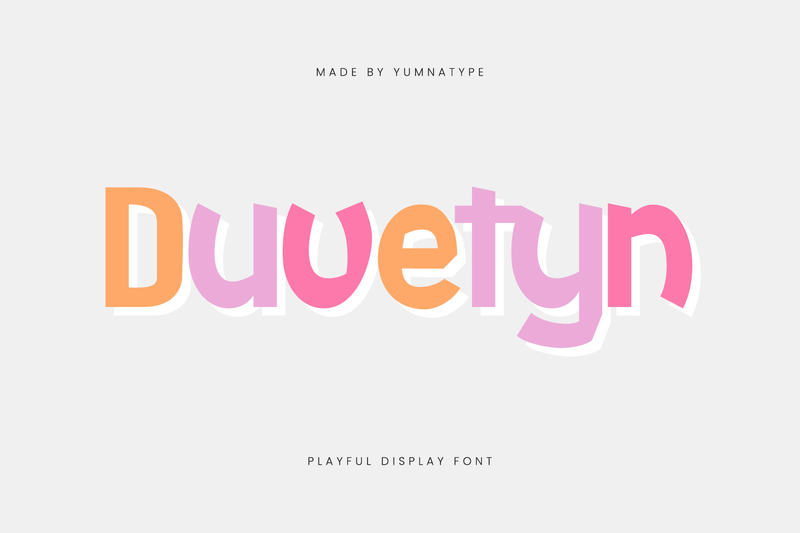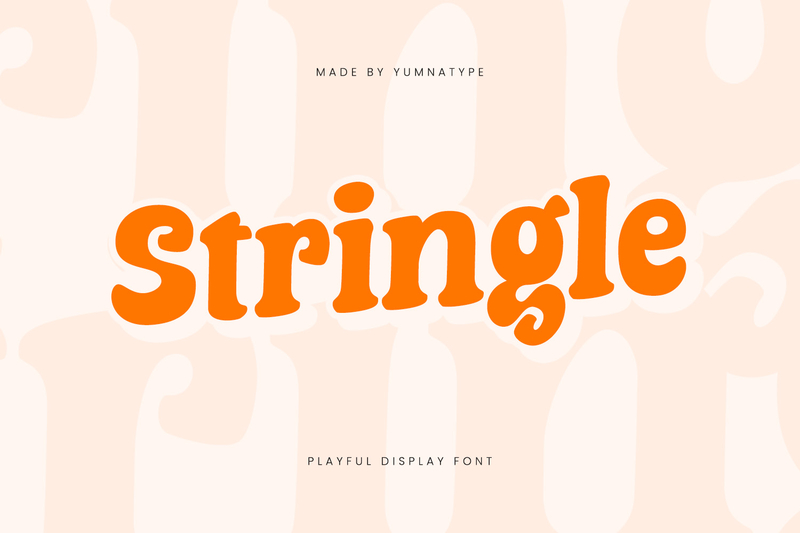
13 Recommended Playful Heavy Font Styles for Your Bold and Playful Designs
Have you ever been instantly drawn to a design just by looking at the letterforms? Like playful, heavy fonts, these fonts are gaining popularity because they create bold, engaging, playful, and characterful visuals. Font selection is no longer just a complementary element; it plays a crucial role in creating a visual atmosphere, capturing the audience’s attention, and strengthening brand identity, making it more memorable.
The combination of bold letterforms with playful touches creates an expressive, fun, and energetic impression. Therefore, we present 13 recommended playful heavy font styles that designers can use for posters, branding, packaging, and even more eye-catching children’s designs.
If you’re looking for recommended playful heavy font styles with a bold, unique, and characterful look, this article will help you find the best options for your modern design needs. Here are our most recommended playful heavy font styles for a more creative, eye-catching, and memorable design.
Ranhart
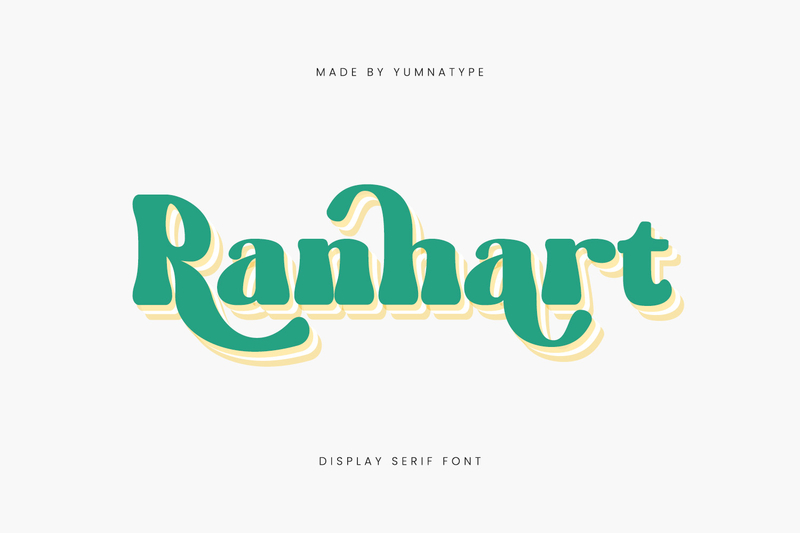
Ranhart is one of the recommended playful heavy font styles with bold serifs that combines rounded and unique curves, creating a playful and stylish look. This font brings a warm, fun, and standout modern retro feel with decorative swash details that easily attract attention.
Ranhart is perfect for playful vintage logos, retro posters, branding, and social media designs that aim to be more expressive and memorable. The font’s main strength lies in its combination of bold letters, dynamic shapes, and comfortable readability, creating a vibrant and elegant design.
Bullsnite
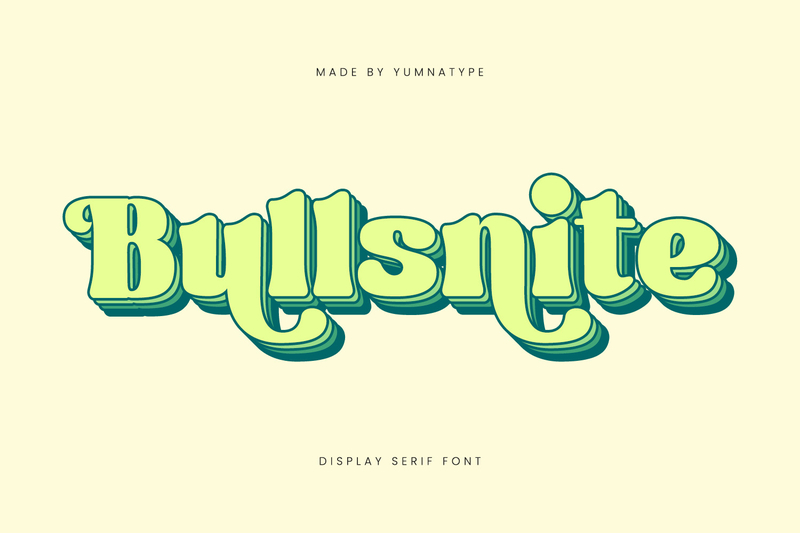
Bullsnite comes as a recommended playful heavy font with a bold display style blended with rounded letterforms, creating a strong yet fun and approachable feel. The low-contrast letterforms, bold shapes, and distinctive curved details create a unique, playful retro feel, making designs more vibrant and eye-catching.
This font is ideal for poster designs, logos, branding, product packaging, and social media content seeking to stand out and appear distinctive. Furthermore, Bullsnite also features alternates, which help make text appear more varied, creative, and expressive.
Pinkish Fruits
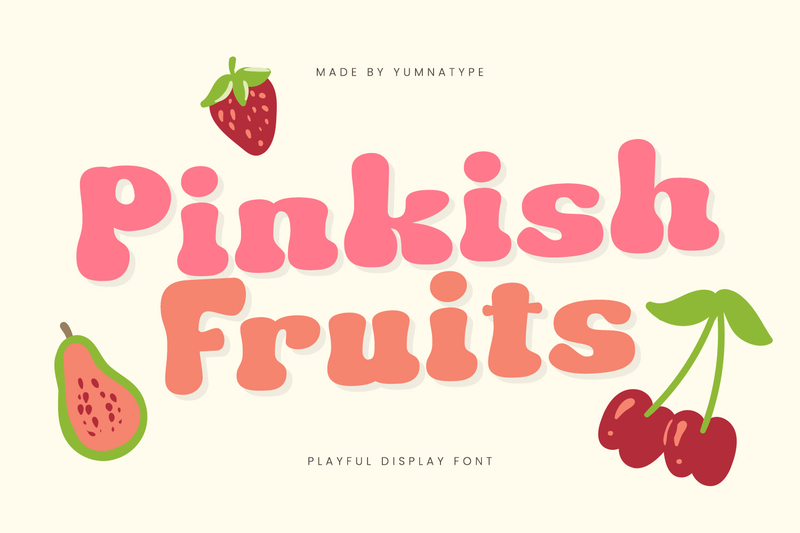
Pinkish Fruits is a recommended playful heavy font with a cute and cheerful feel that makes designs look more fun and eye-catching. Its rounded letterforms and extra thickness create a soft, friendly, and energetic look. This font is suitable for dessert branding, food packaging, and children’s posters, creating a sweet, expressive, and memorable visual appearance.
Borner Wilds
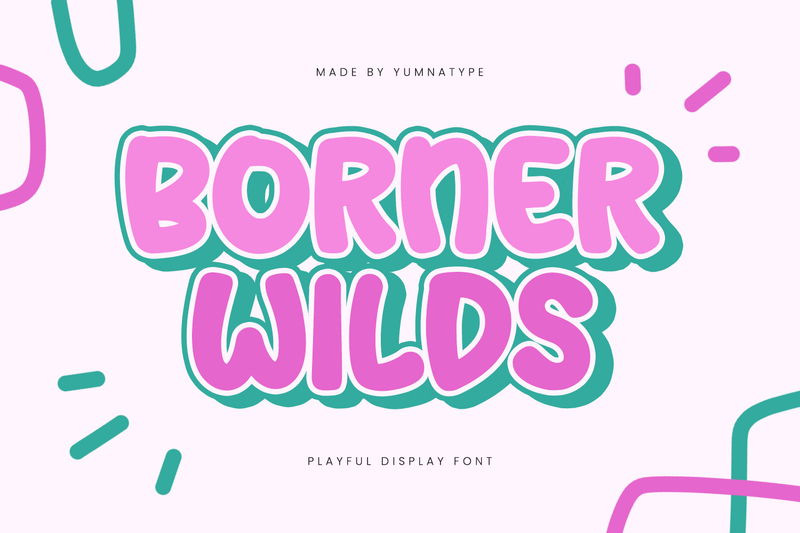
Borner Wilds features bold all-caps with rounded letterforms, creating a playful, energetic, and engaging look. The low-contrast, bold lettering creates a fun and friendly feel without compromising readability. Suitable for headlines, posters, branding, product packaging, and even social media content, this font helps create more standout and attention-grabbing designs.
Fancies Toys
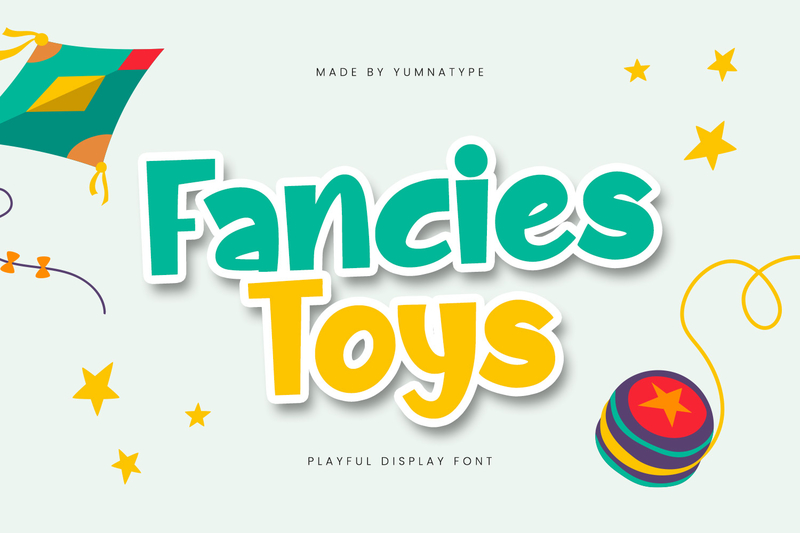
Fancies Toys is a recommended playful heavy font with a bold display style and geometric letterforms that create a fun, playful, yet slightly bold appearance. The boldness of the letters and their dynamic shapes help text stand out and be more memorable. This font works perfectly for children’s posters, toy branding, product packaging, and social media content that wants to appear more cheerful and expressive. Furthermore, Fancies Toys is equipped with ligatures that help the text appear more unified, creative, and visually appealing.
Nice Twins
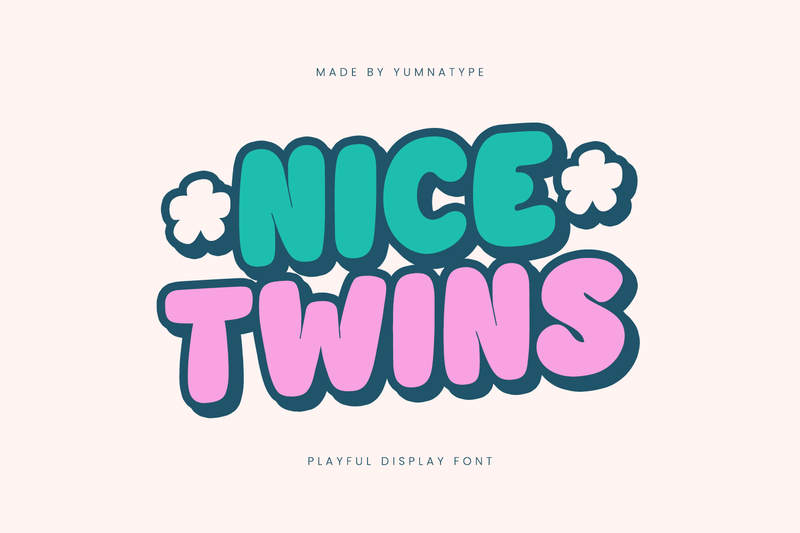
Nice Twins is one of the most popular recommended playful heavy font styles for modern design, with a bold, fun, and characterful look. The all-caps style with rounded letterforms creates a friendly impression and makes the text stand out and eye-catching.
Designers often use this font for posters, branding, logos, product packaging, and social media content aiming for a more playful and eye-catching design. Additionally, Nice Twins feature ligatures to make the text more creative, blended, and dynamic for various design needs.
Spring Sounds
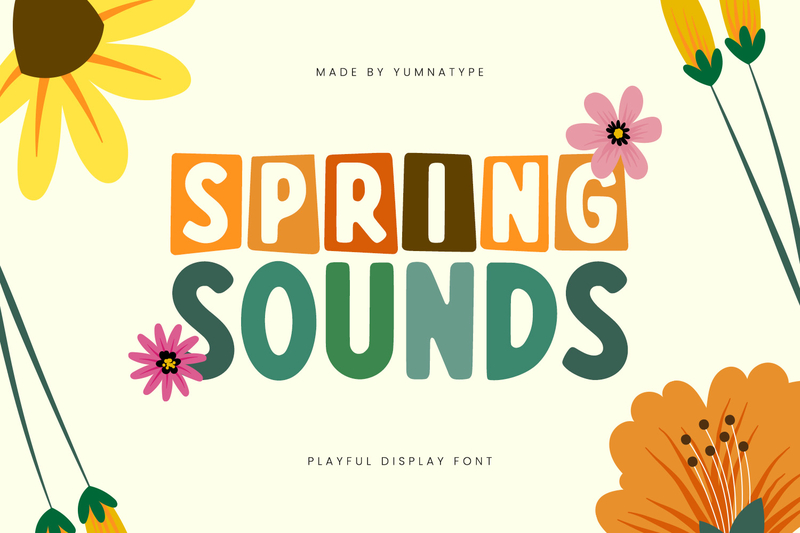
With its playful display style anf bold, energetic feel, Spring Sounds presents a unique visual look. This font combines uppercase and lowercase letters in the concept of varied all-caps. The rounded letterforms give a friendly and fun impression, while the font’s thickness makes the text stand out and eye-catching. Therefore, Spring Sounds is suitable for posters, branding, product packaging, social media content, and fun, youthful-themed designs.
Greny Wish
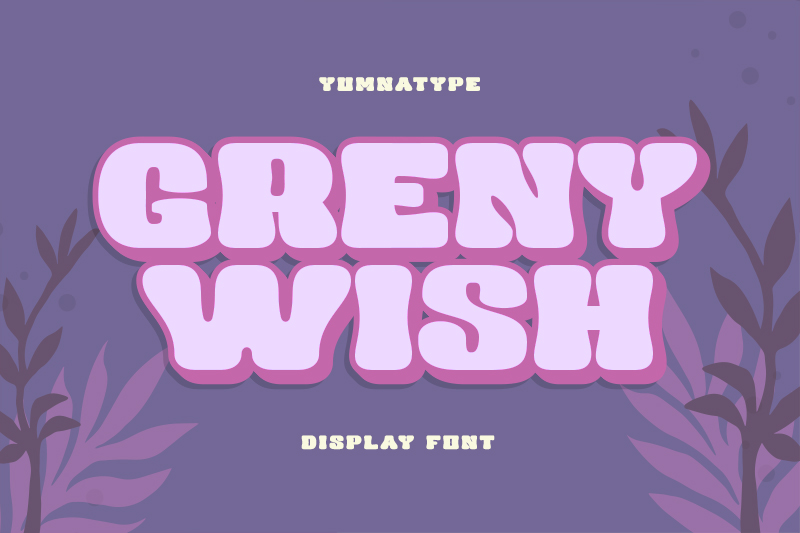
Of the various recommendations discussed, each playful heavy font has its own unique characteristics that can be tailored to suit your design needs. Choosing the right recommended playful heavy font helps create a more striking, creative, and professional design, resulting in a stronger and more memorable visual message. Discover and use the best playful heavy fonts to make your designs more engaging and memorable now!